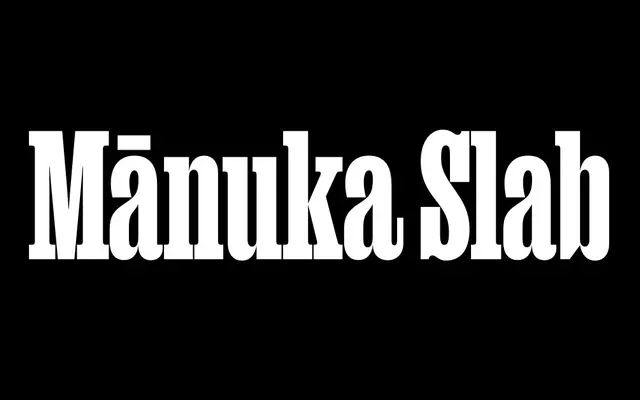
Mānuka Slab
Klim Type Foundry · Kris Sowersby · 2021
Mānuka Slab specimen from Klim Type Foundry
The slab partner to Mānuka Condensed, compressed and rooted in Teutonic timber type, running Thin to Ultra for display work.
A compressed slab by Kris Sowersby that takes Mānuka's antipodean reading of 19th century Teutonic timber type and adds slab serifs. Seven upright weights run from Thin to Ultra with stylistic alternates for a and R, no italics. Pairs naturally with Mānuka Condensed inside the same collection, and earns its keep on posters, packaging and editorial display where the texture needs to feel hand-cut rather than digital.
Klim classifies it as Modern: Slab-Serif; the slab cut of the Mānuka collection, sharing compressed proportions and Teutonic timber-type details with Mānuka Condensed.